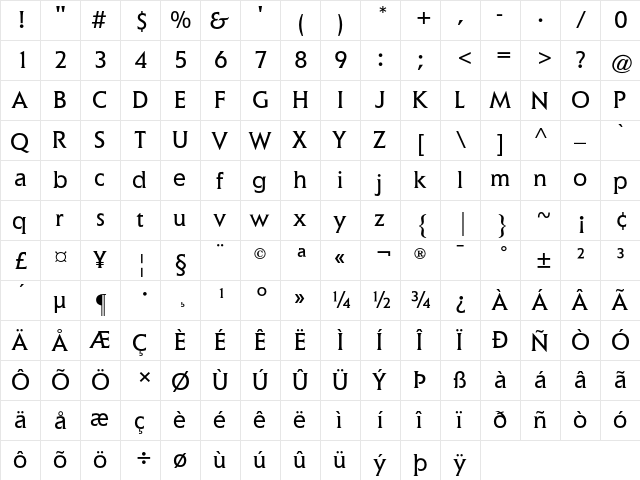
Elan AT Book Regular
Design Context for Elan AT Book Typeface
Elan AT Book takes a measured approach to typography — its balanced proportions and neutral character make it a reliable workhorse for both digital and print work.